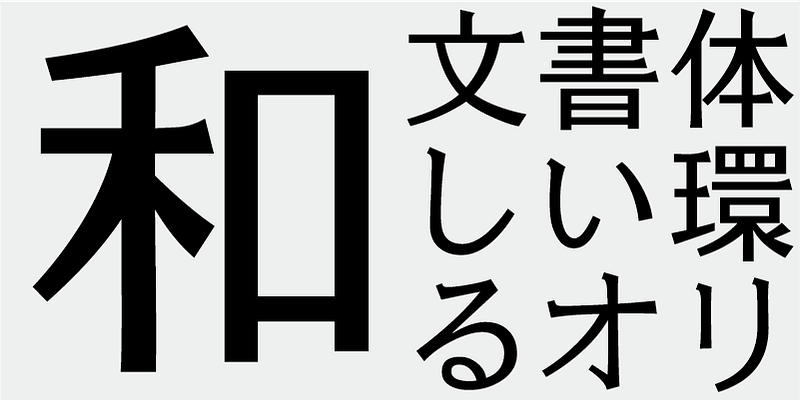
AB Hiro Font Free Download is a bold and modern Japanese-style display typeface that combines traditional influences with strong, contemporary design. With its solid strokes, geometric precision, and clean composition, AB Hiro is ideal for branding, headlines, signage, packaging, and editorial layouts that require both impact and elegance.
The font’s name, “Hiro,” evokes a sense of strength and clarity—qualities that are reflected in its confident letterforms and structured design. While inspired by Japanese typographic aesthetics, AB Hiro maintains universal appeal, making it versatile across a wide range of cultural and commercial design contexts. Its crisp lines and balanced proportions make it highly legible and visually compelling.